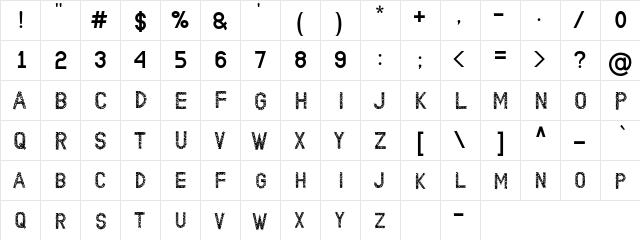
ALPHABETH Regular
| Designer | Indra Gunawan |
Design Context for ALPHABETH Typeface
ALPHABETH is a composed and adaptable typeface that performs quietly and consistently across a wide range of design contexts.